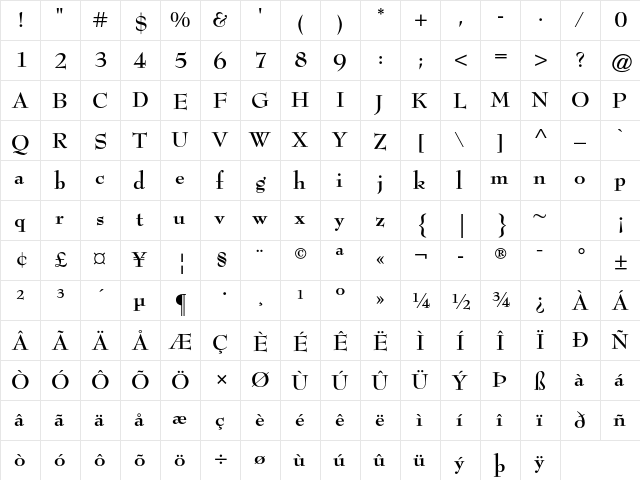
Bernhard Modern Std Bold Font Preview
Bernhard Modern Std Bold
Bernhard Modern Std Bold Font Details
| Designer | Lucian Bernhard |
Design Context for Bernhard Modern Std Typeface
Bernhard Modern Std offers clean, dependable letterforms without strong stylistic allegiance, making it a practical choice for designers who need flexibility. Its bold stroke weight gives it real presence on the page.